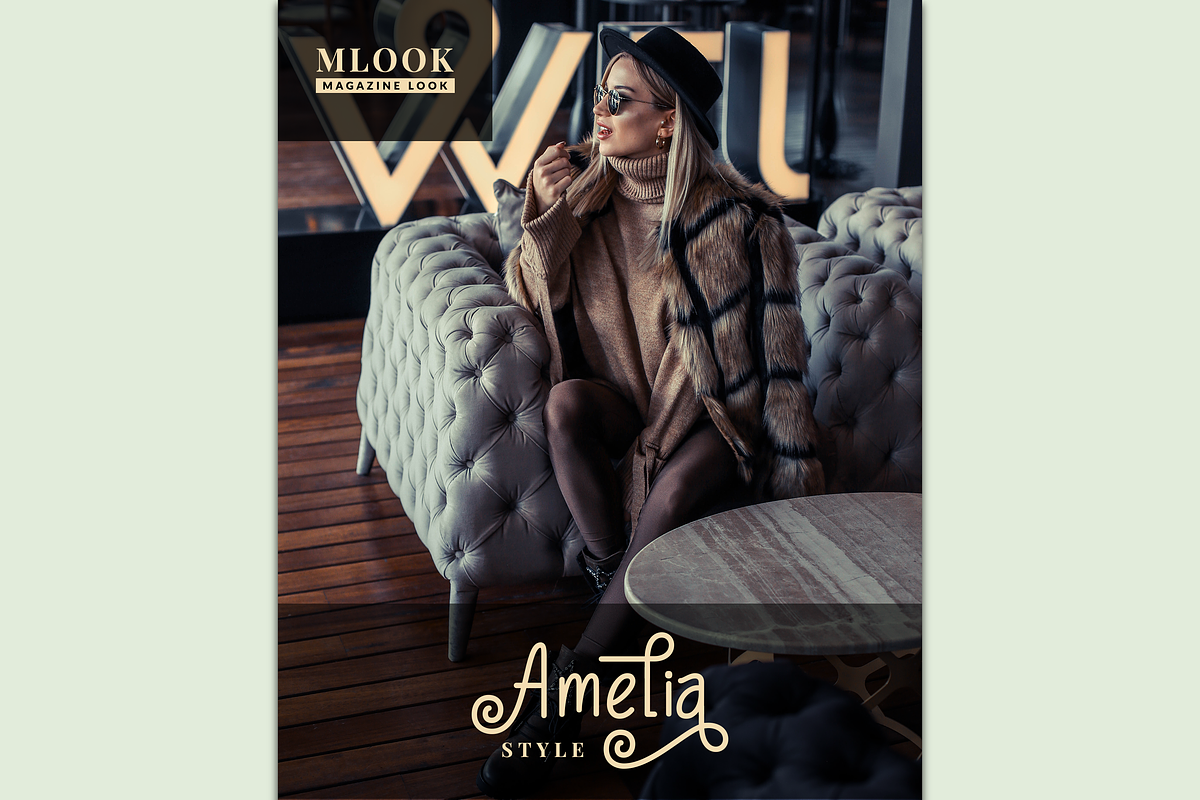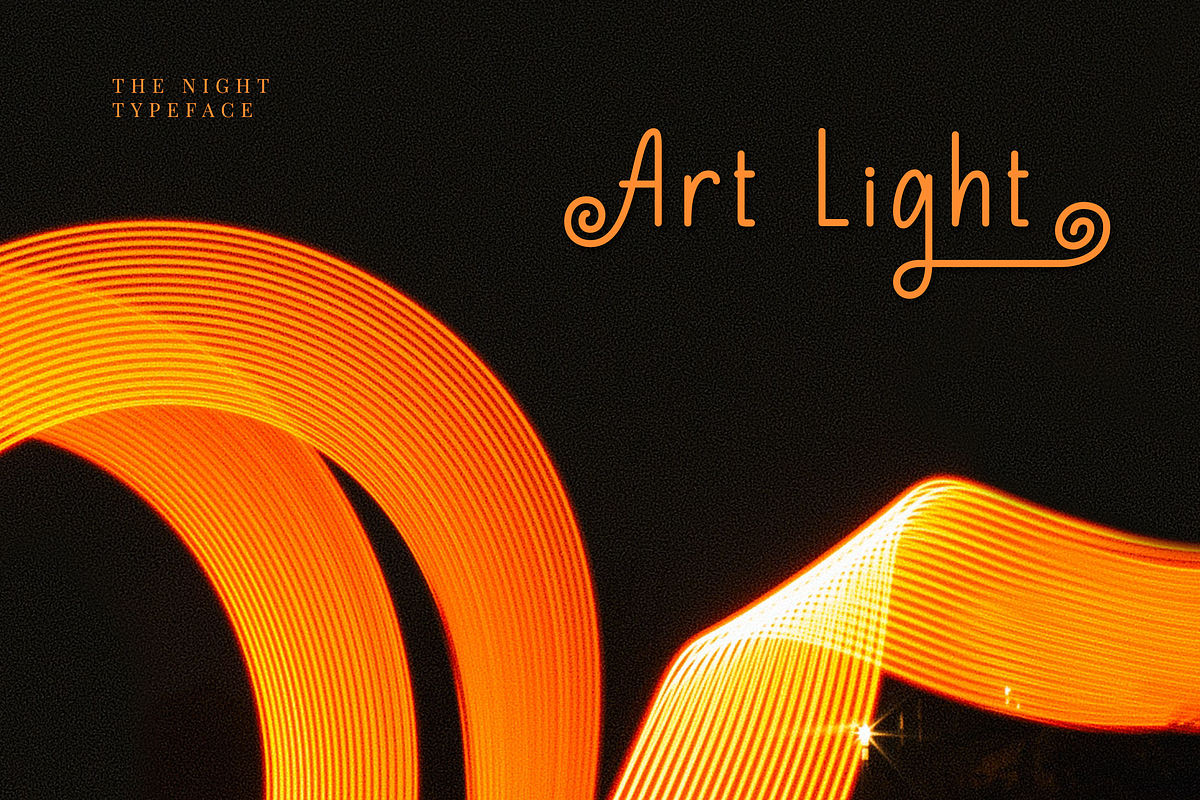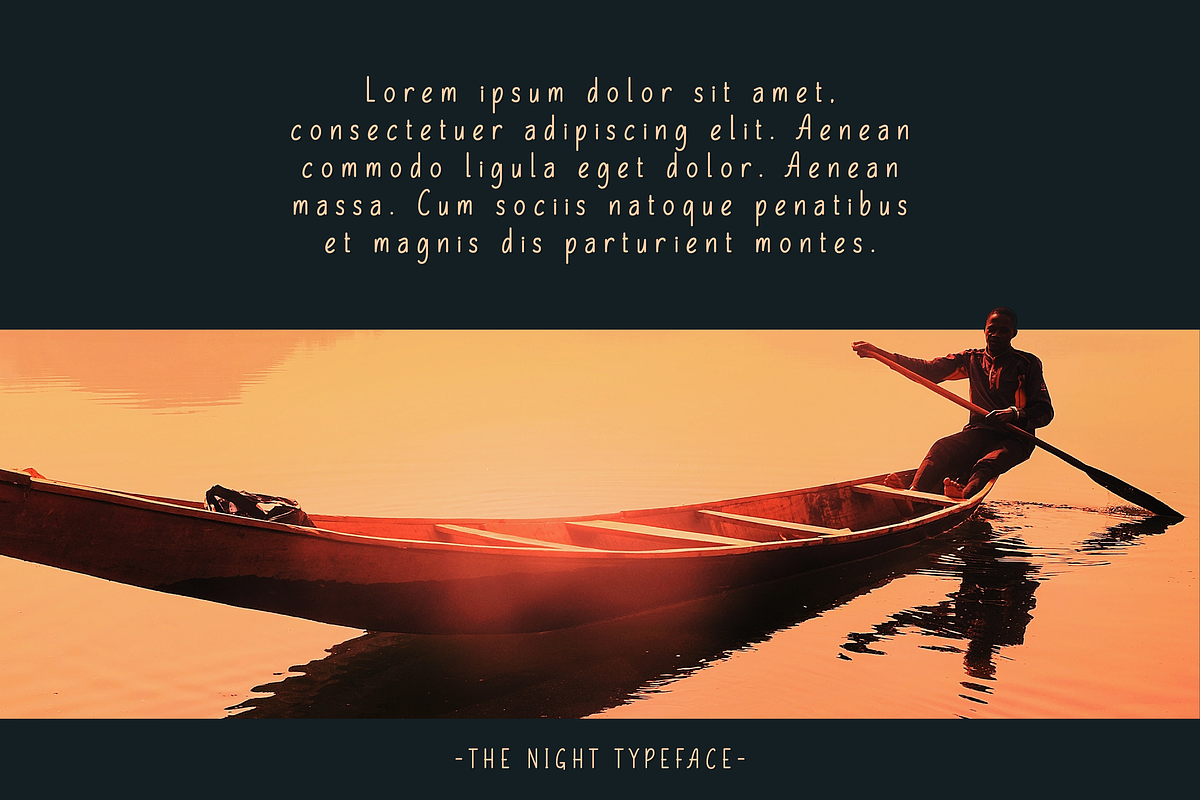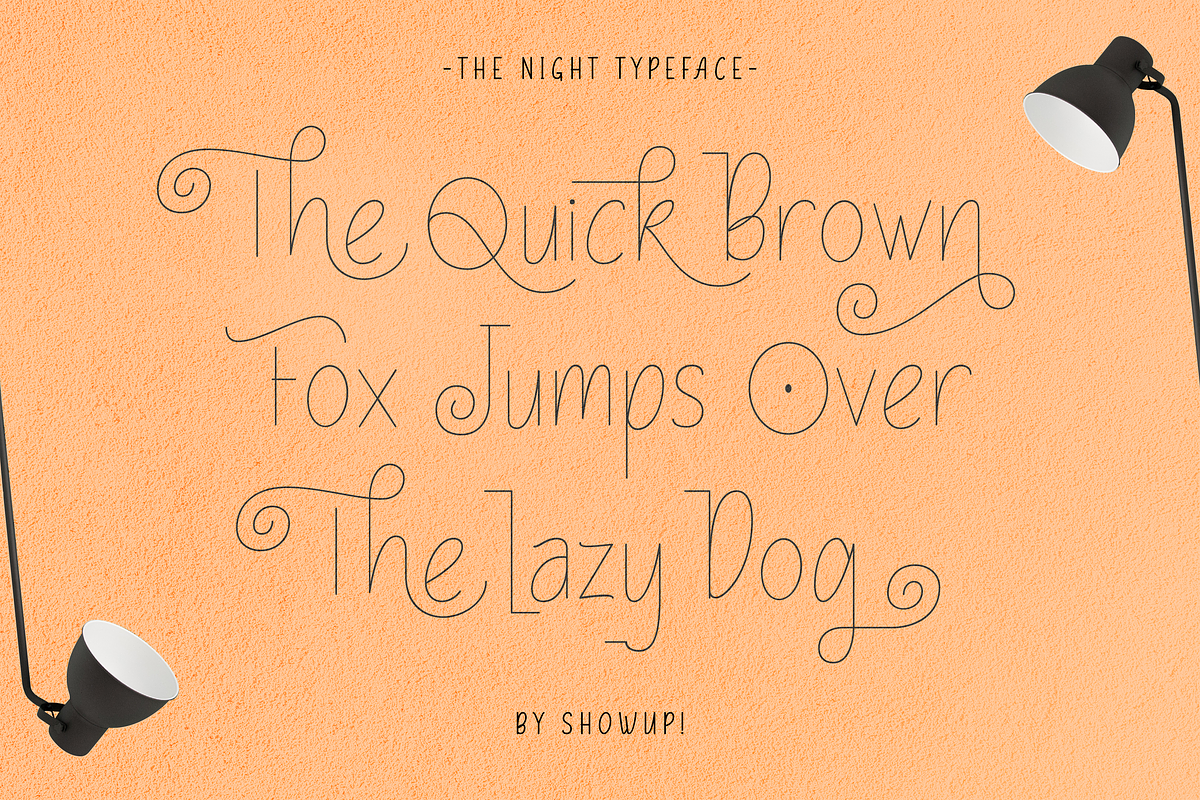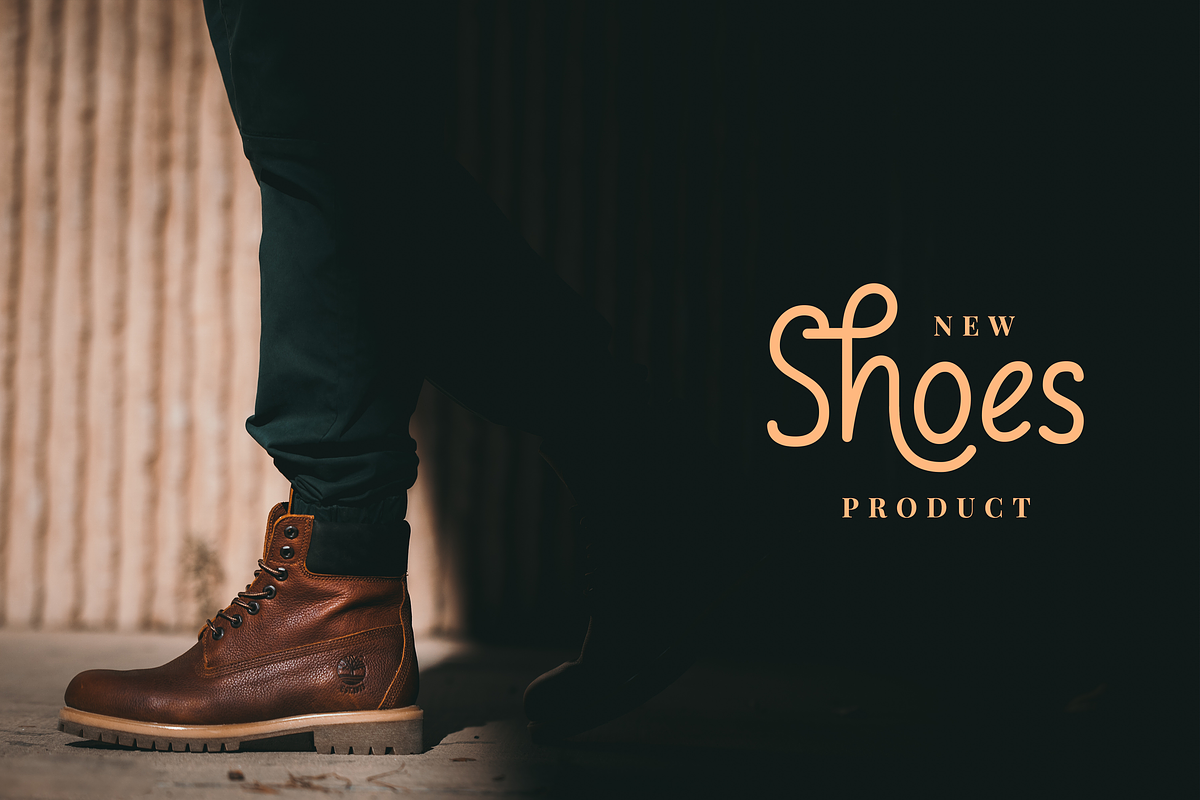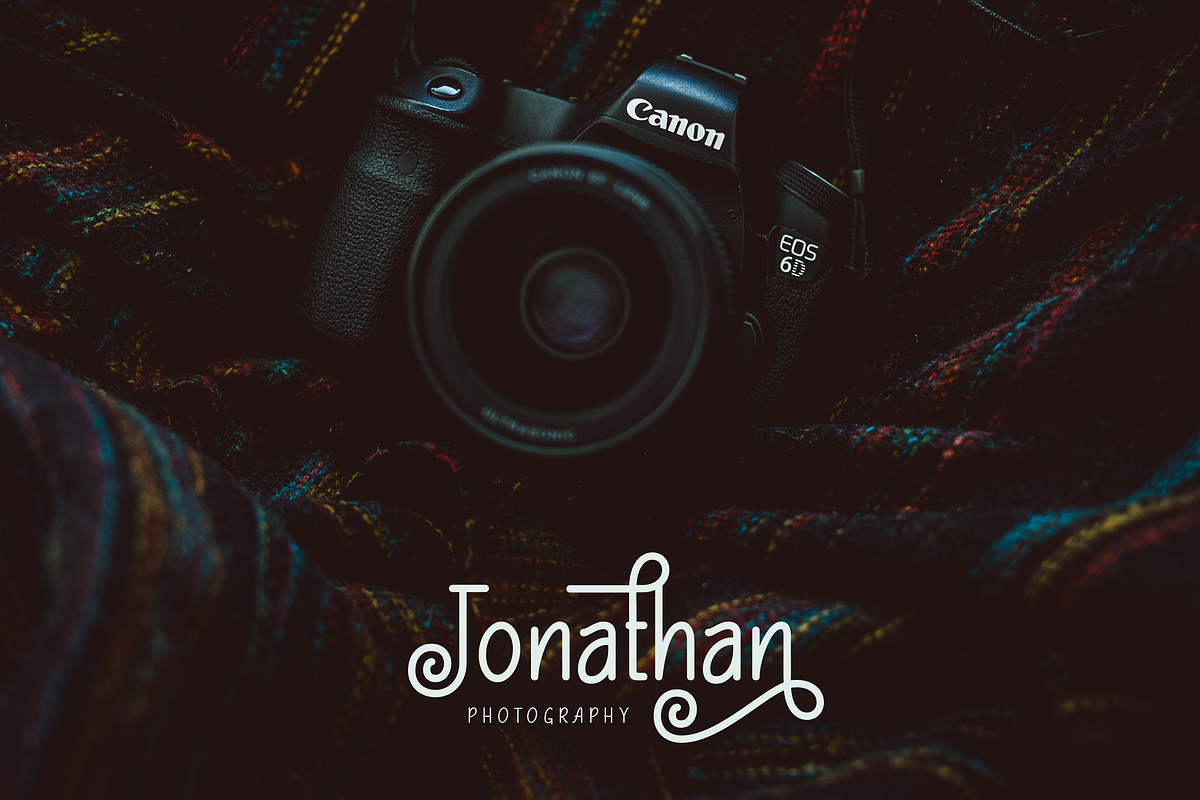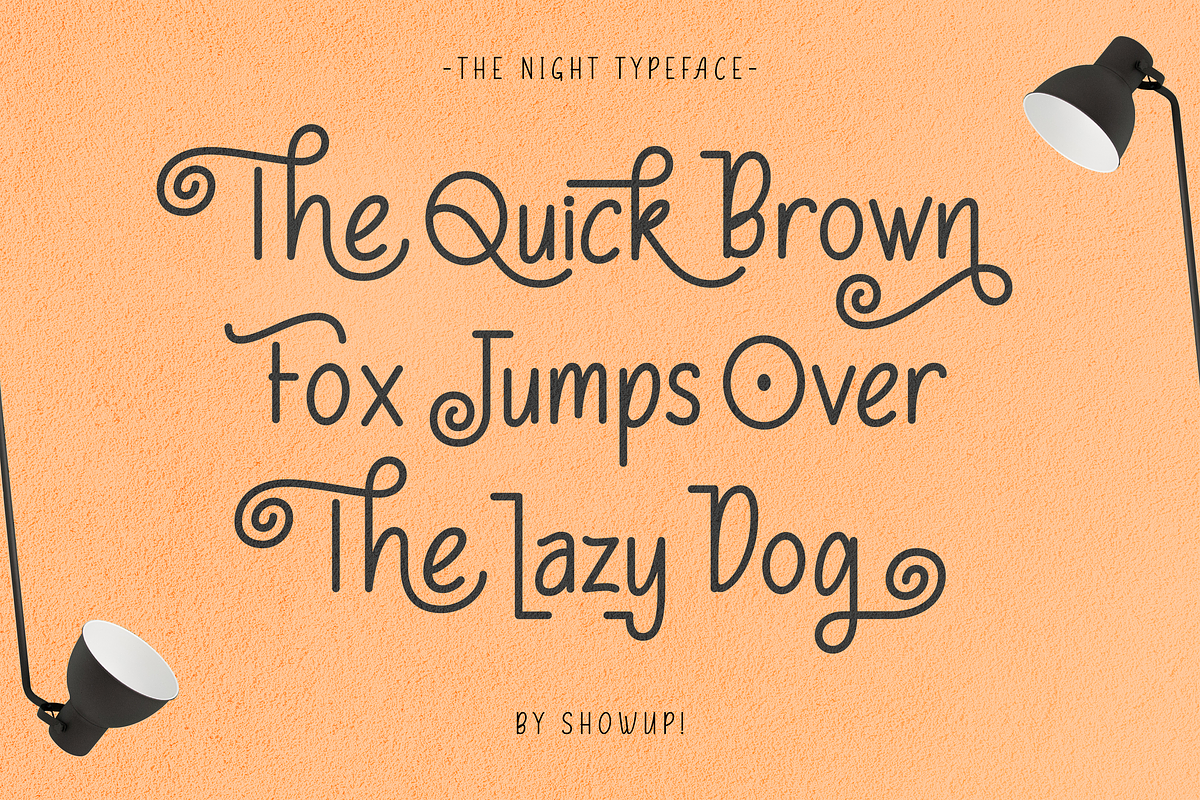
The Night Typeface
Hey Guys! My new typeface The Night is a playful and elegant Sans Serif, perfect for branding projects, headlines, posters and packaging! Primarily it is characterized by a modern look with straight shapes, but on a closer view, you will notice subtle connection to vintage type design from the early 20th century.
In addition, this type of letter is very unique and versatile! and equipped with a stylistic set. In addition, there are many unique letters that can be used and adjusted to your wishes. hopefully according to your expectations.
Character set A-Z with some special lowercase options
2 Stylistic set Uppercase
9 Stylistic set Lowercase